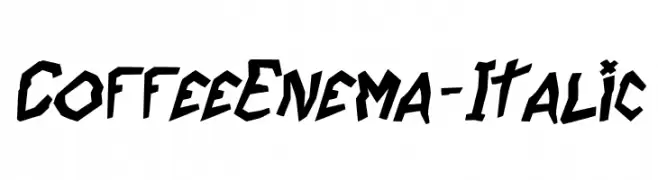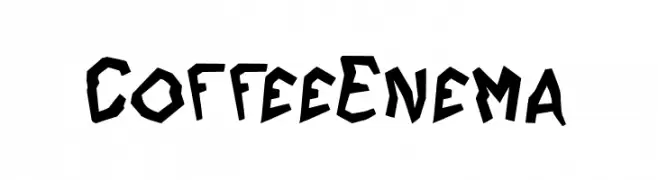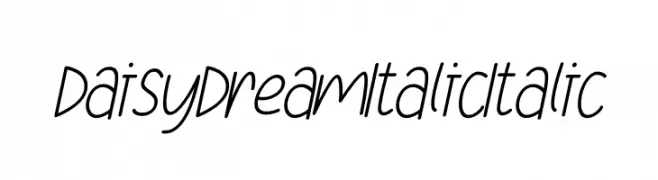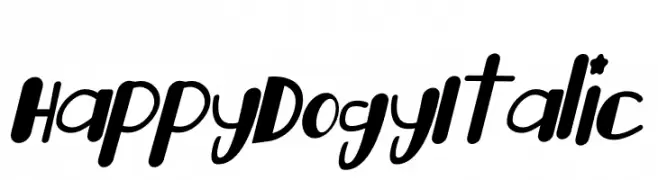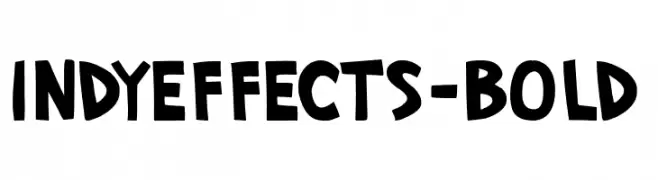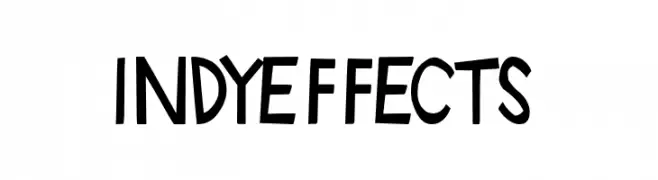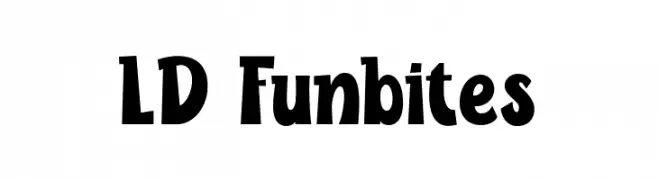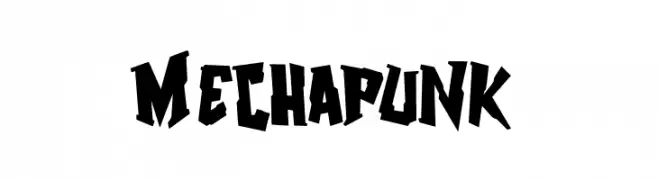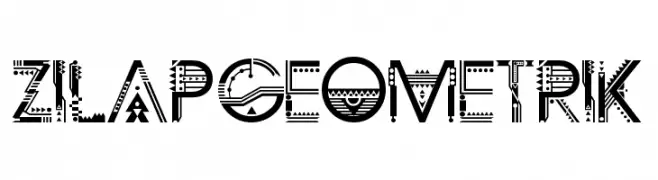
A bold, angular font with a futuristic, mechanical style.
A decorative geometric font with intricate patterns and bold shapes.
Bold, angular, and slightly slanted font with a dynamic style.
A bold, jagged font with an edgy, irregular style.
A playful, handwritten-style font with bold, irregular characters.
A bold, playful font with dynamic and irregular letterforms.
A playful and bold font with thick strokes and whimsical shapes.
A playful, bold, and rounded font with a whimsical, handwritten style.
A bold, italicized handwritten font with a playful and dynamic style.
A playful, flowing handwritten font with smooth curves and a casual style.